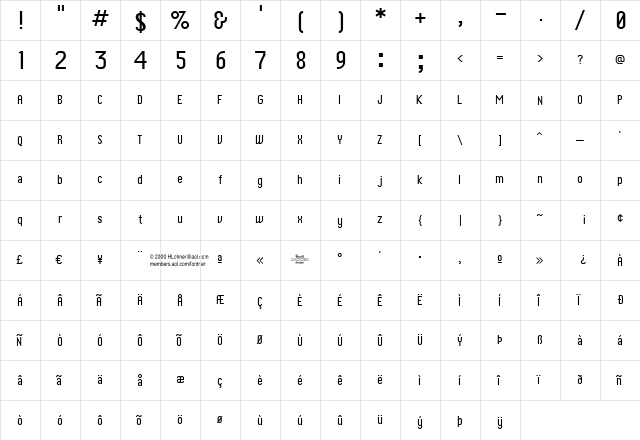
Chica Mono Regular
Design Context for Chica Mono Typeface
Chica Mono uses fixed-width spacing throughout, giving it the structured, systematic character associated with coding environments and technical documentation.
Well-suited to data-driven dashboards, coding tutorials, and any design that wants to reference the world of programming.
Pro Tip: Use Chica Mono with slightly increased line-height for extended reading — fixed-width spacing can feel dense in longer passages without extra breathing room.